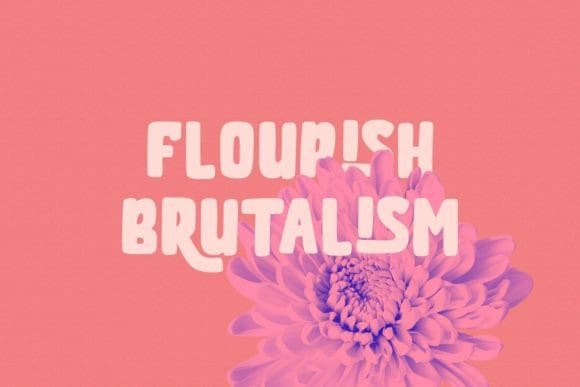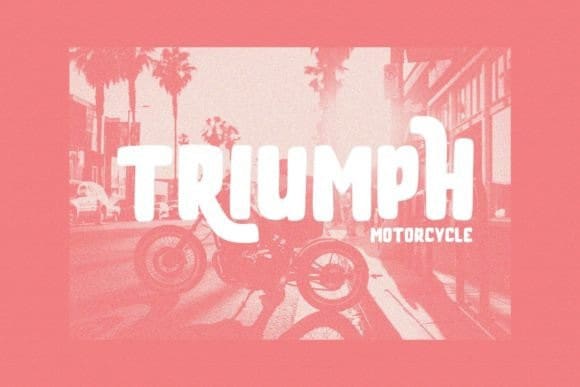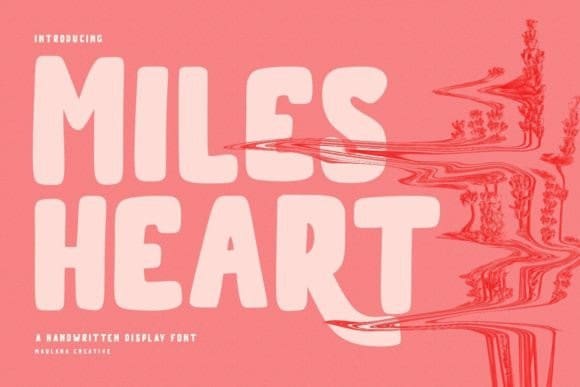
Milesheart Display Font
Milesheart Display Font is a handwritten sans display font. With bold block stroke, fun character with a bit of ligature and alternates. To give you extra creative work. This font is good for logo design, Social media, Movie Titles, Books Titles, short text even long text letters, and good for your secondary text font with sans or serif. Make stunning work with Milesheart Display font.